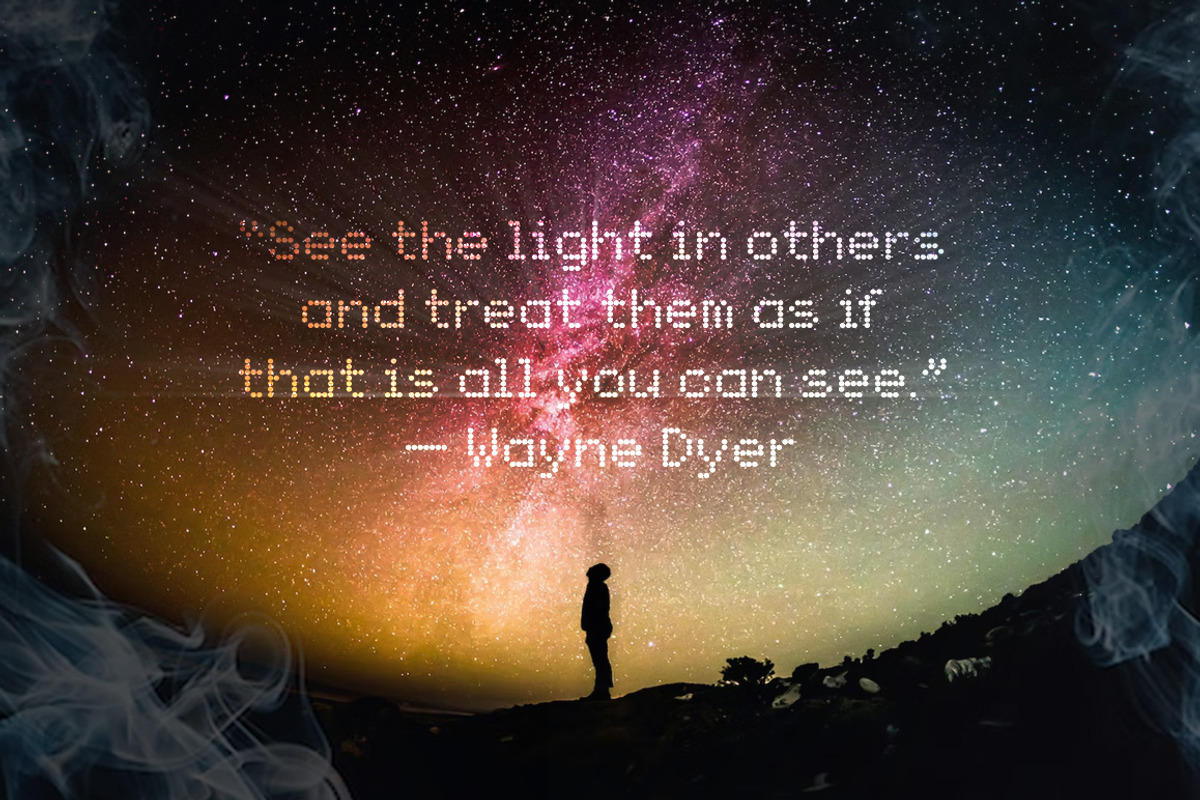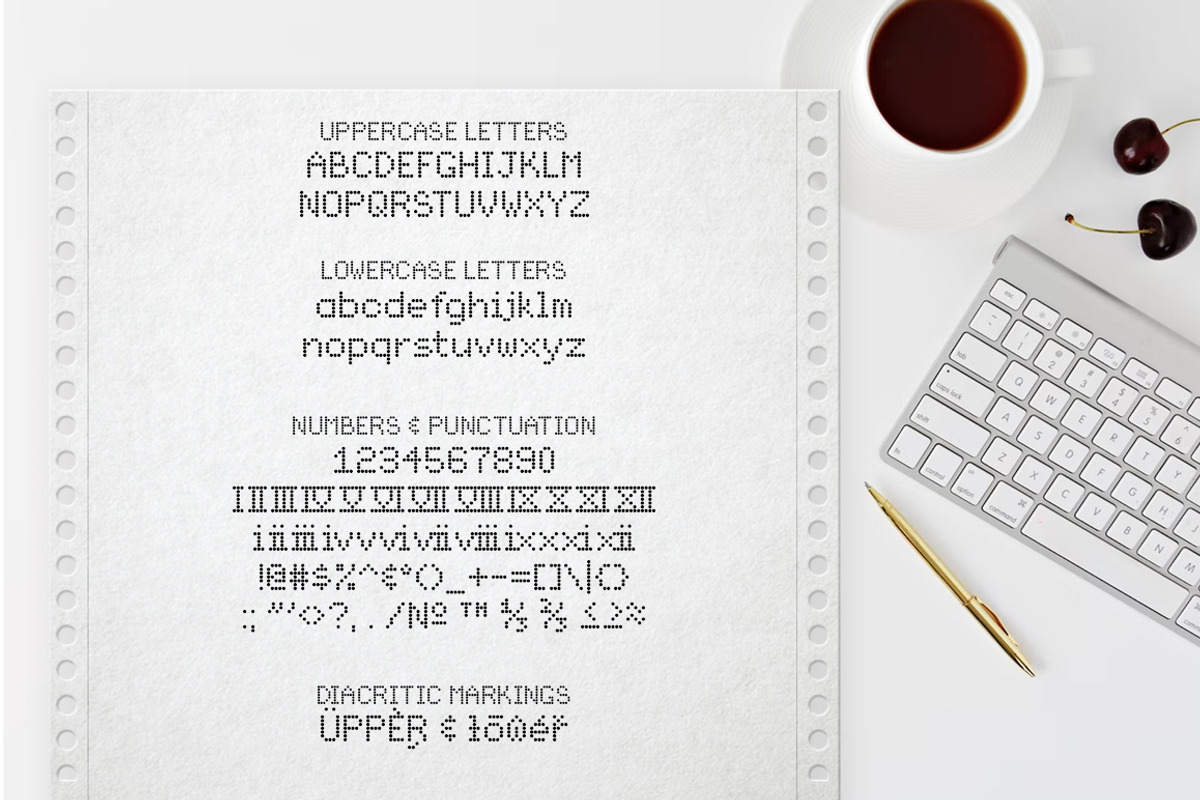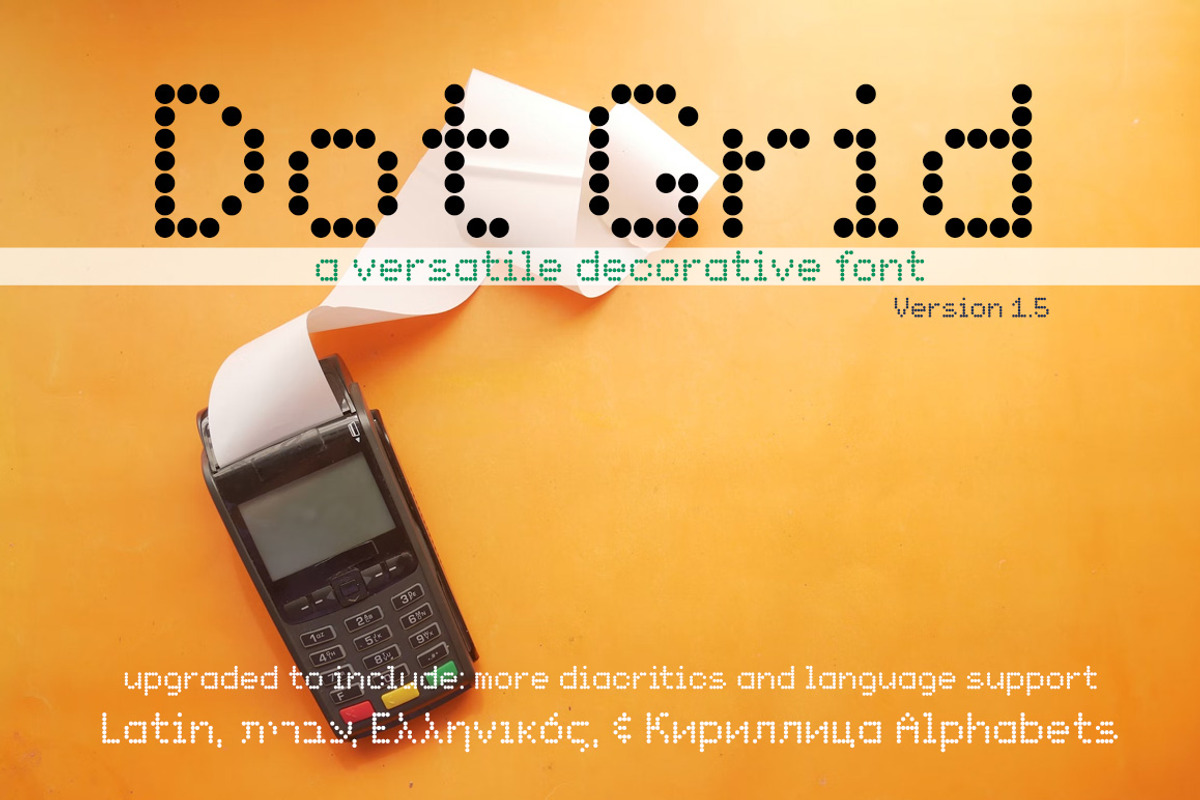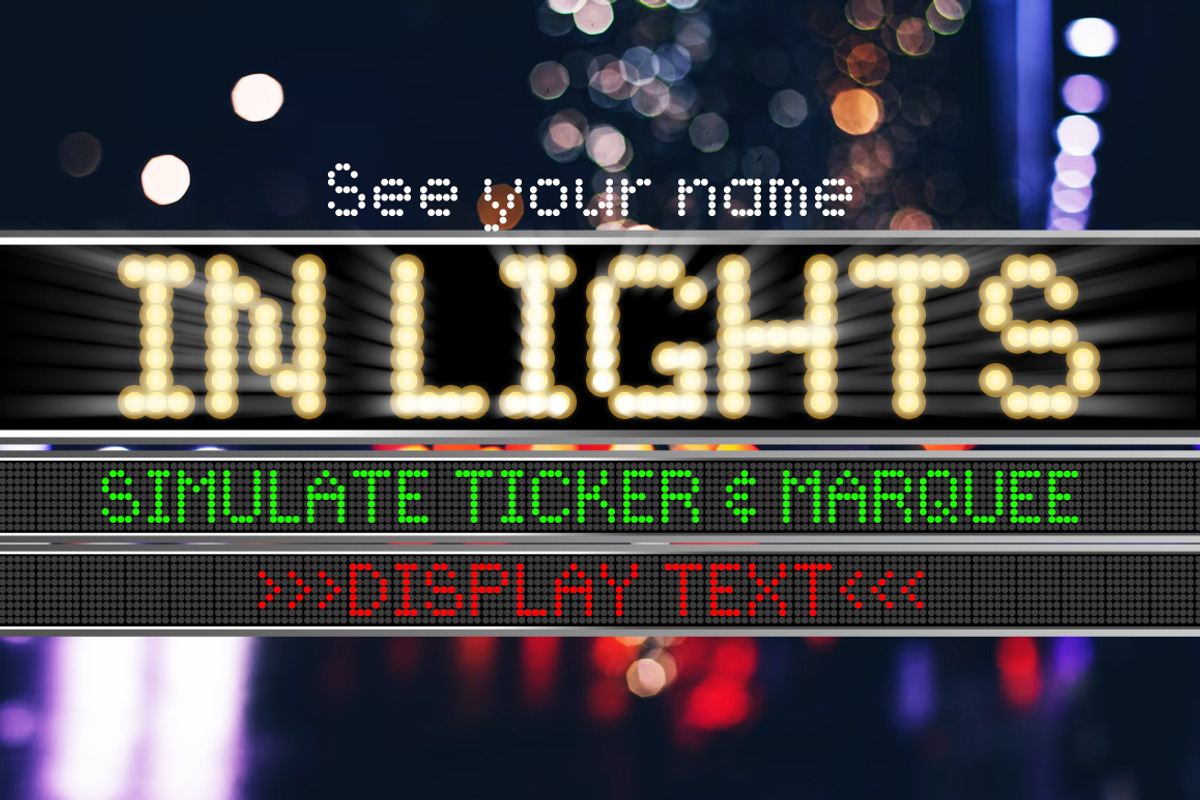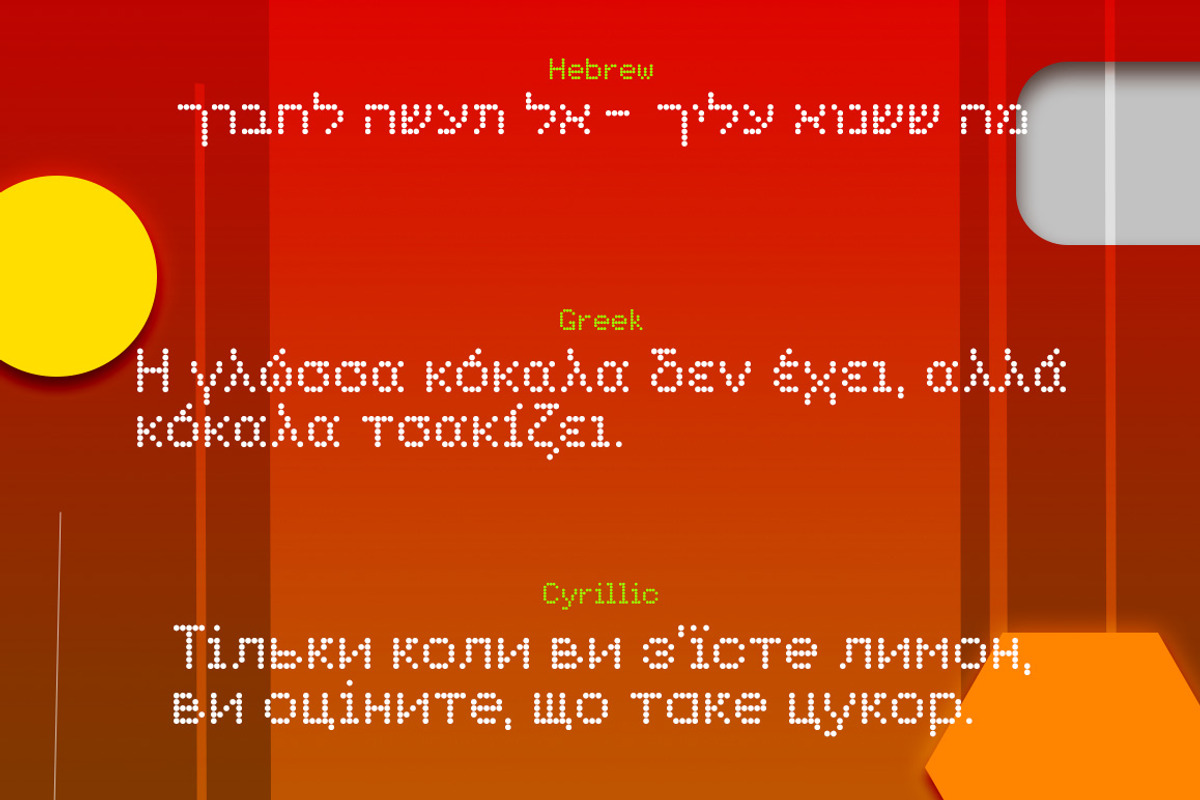
Dot Grid
Perfect for Receipt, Dot Matrix Printer, LED, or Bulb lettering effects
UPDATE 1.5: Expanded Latin diacritic markings and mathematic characters, added Greek, Cyrillic, and Hebrew alphabets, and Roman numerals.